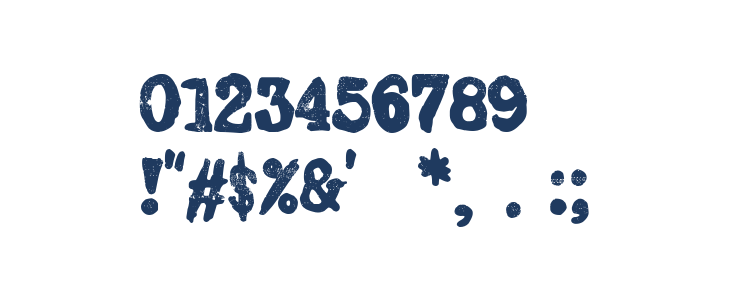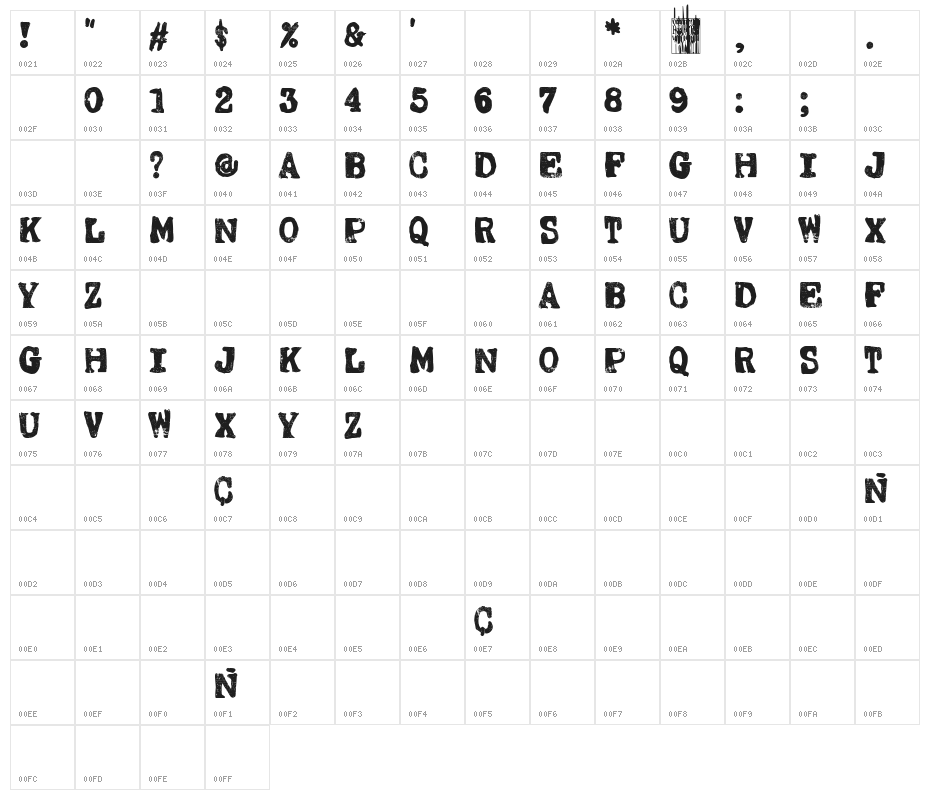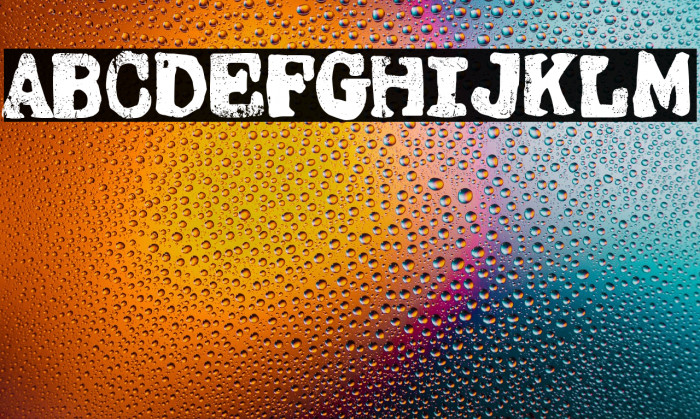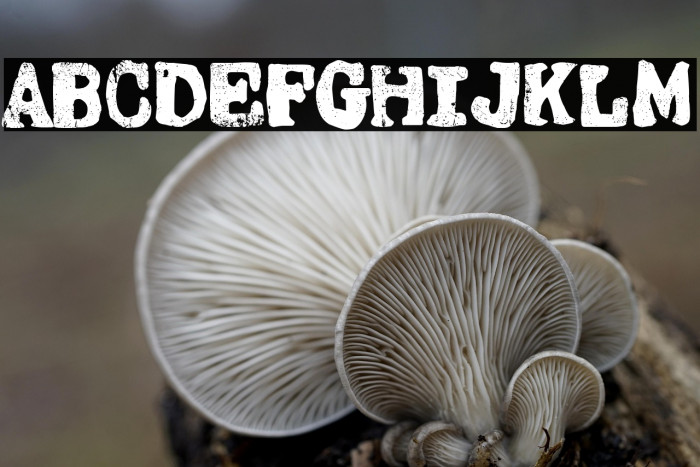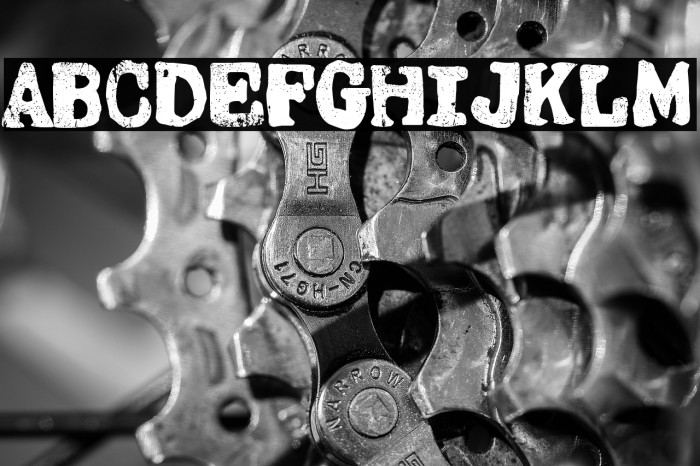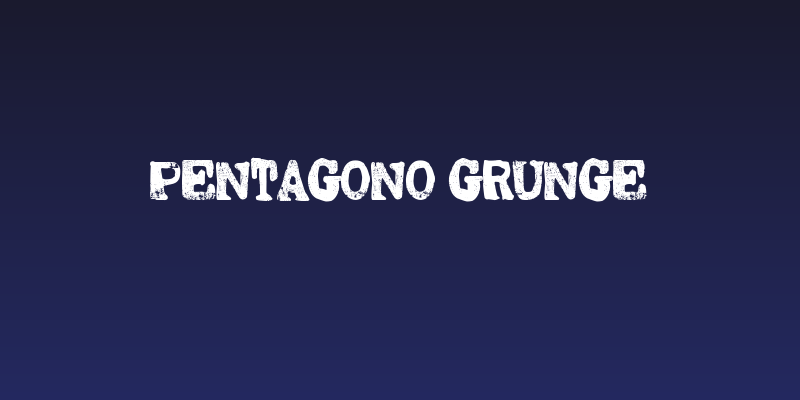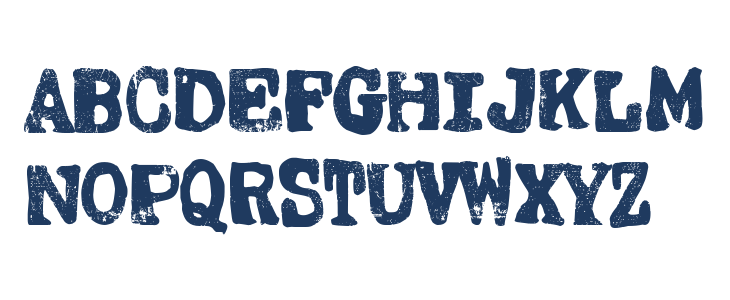
Pentagono Grunge Font
Pentagono Grunge Description
This font features a bold, distressed style with a grunge aesthetic. The characters are heavily textured, giving them a worn and rugged appearance. The uppercase and lowercase letters maintain a consistent weight, while the numbers and special characters follow the same distressed pattern. The overall look is bold and impactful, making it suitable for designs that require a strong, edgy feel. The texture adds a unique character to each glyph, ensuring that no two letters look exactly alike, enhancing its raw and authentic vibe.
| Overall Style | Grunge, Urban, Edgy |
| Proposed Projects | Ideal for music album covers, posters, streetwear branding, and any project needing a gritty, urban feel. |